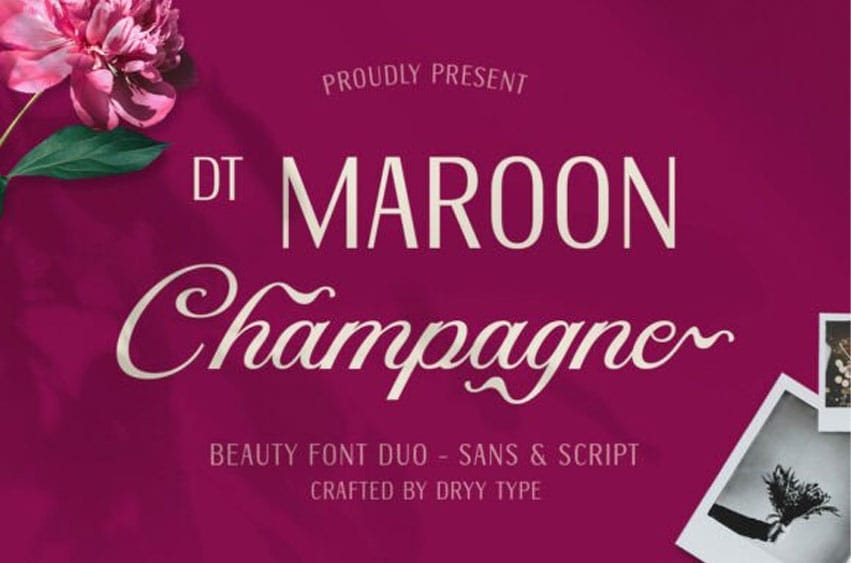
Dt Maroon Champagne Font is the ultimate pairing of elegance and modern sophistication, perfect for giving your branding a refined, high-end feel.
The package includes a graceful, flowing script typeface with beautiful, high-contrast curves and a clean, versatile sans-serif font, allowing you to create stunning visual harmony in your designs.
This high-quality DT Maroon Champagne font is packed with desirable features like stylistic alternates and beautiful ligatures in the script version, giving you creative freedom to customize your letterforms and achieve that perfect bespoke look. Use the sophisticated DT Maroon Champagne typeface for wedding invitations, luxury product packaging, fashion editorial titles, or social media graphics that demand attention.
The versatility of this Beauty Font Duo makes it an essential tool for designers seeking a balance between timeless class and contemporary style.
The font is also PUA-encoded, ensuring effortless access to all glyphs, swashes, and alternate characters to help you customize your creations with ease.